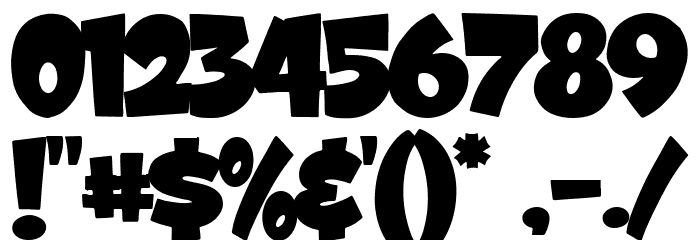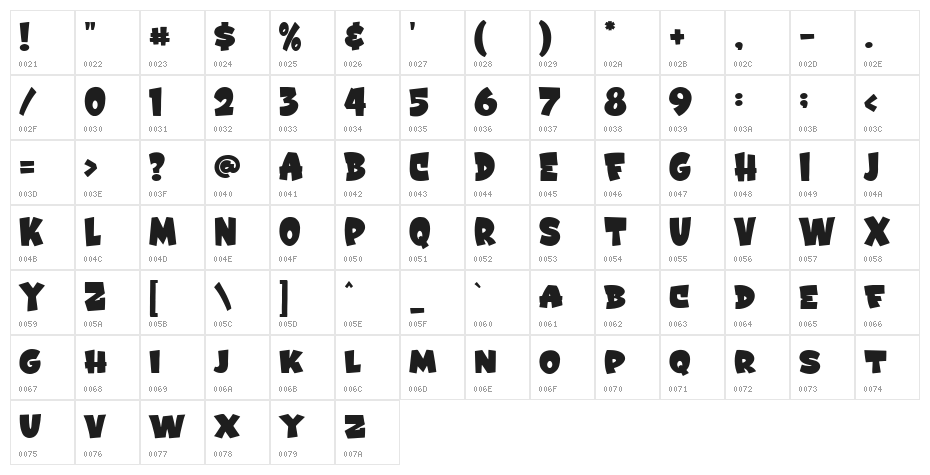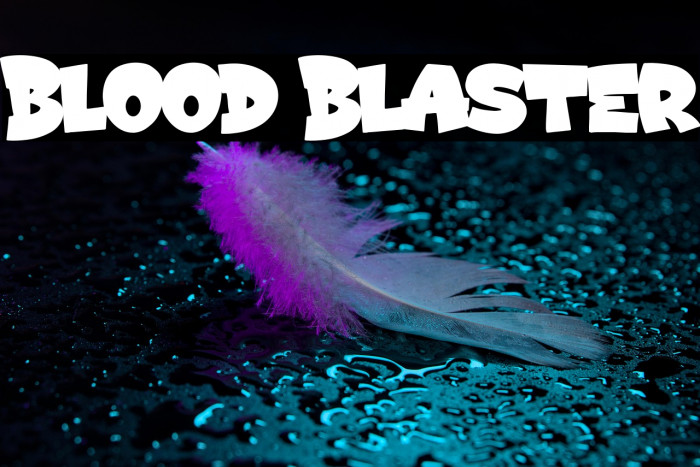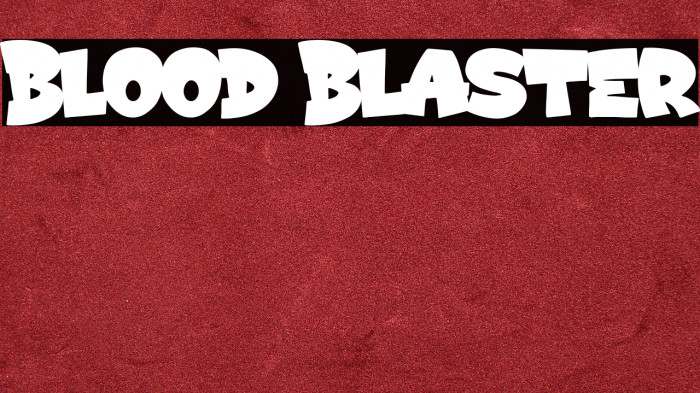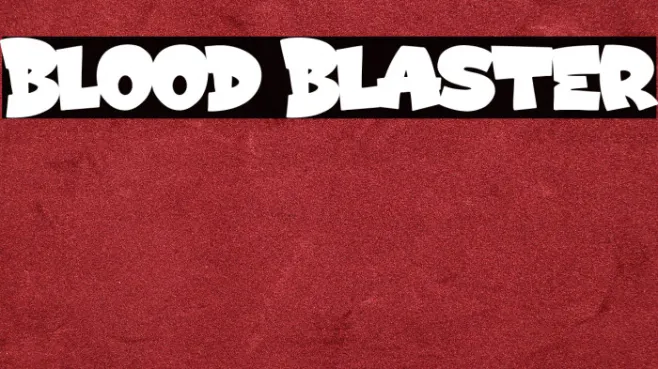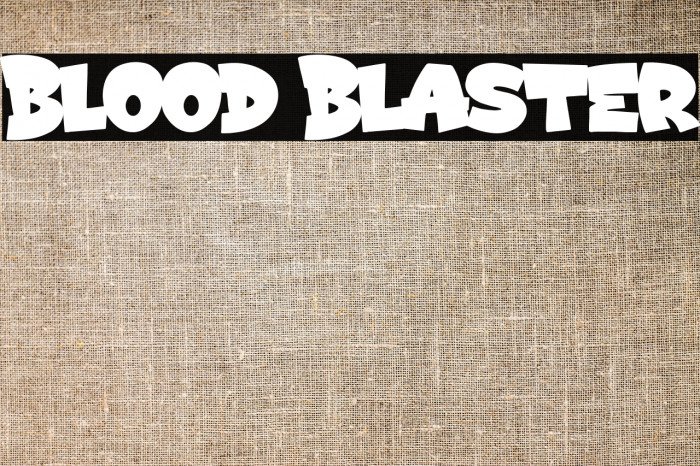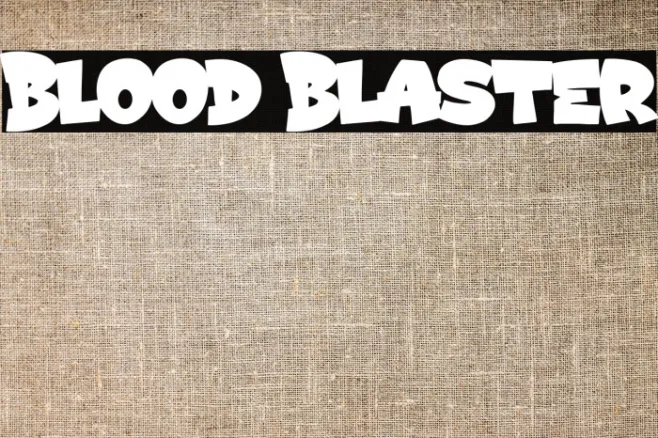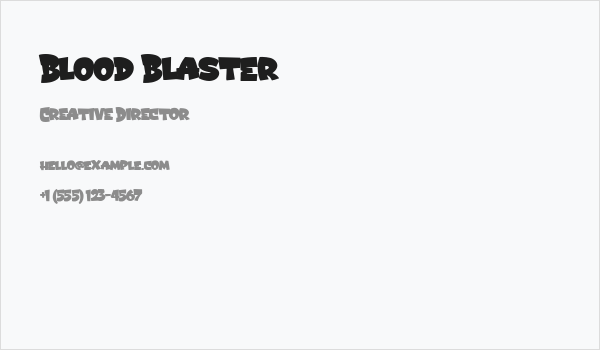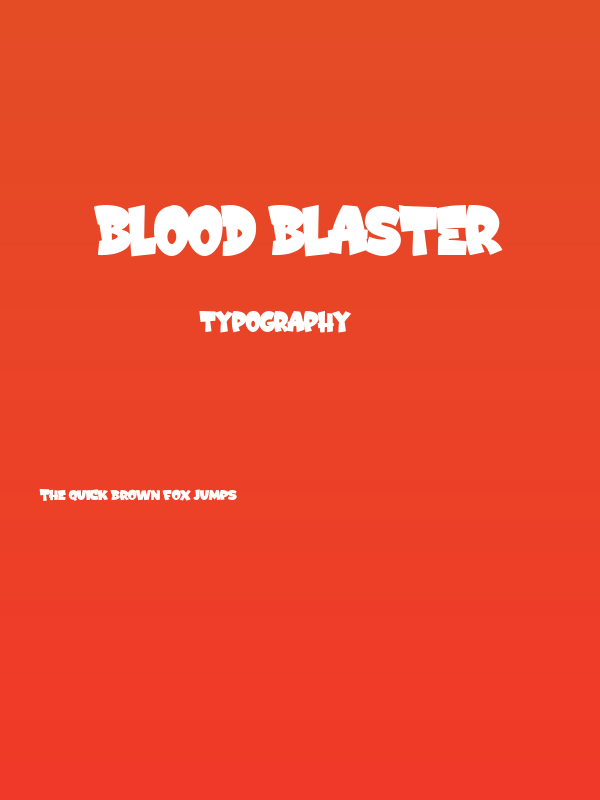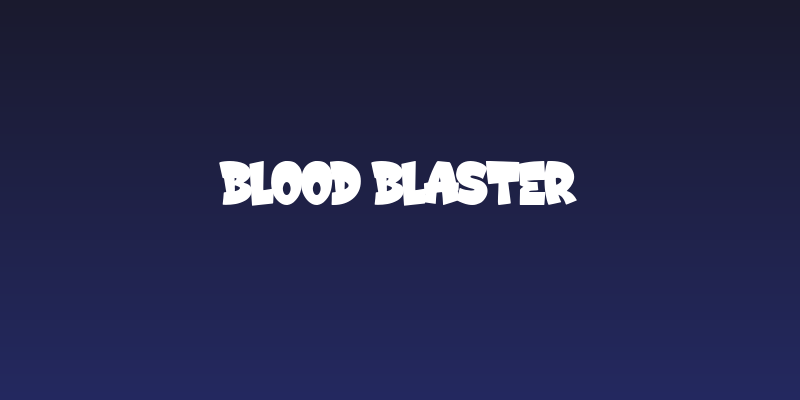
Blood Blaster Font
Blood Blaster Description
This bold and dynamic font features thick, exaggerated strokes with a playful and slightly chaotic appearance. The characters are heavily stylized, with sharp angles and irregular shapes that give a sense of movement and energy. The uppercase letters are particularly striking, with a strong presence that demands attention. The numbers and special characters maintain the same bold style, ensuring consistency across all elements. This font is designed to stand out and make a statement, perfect for projects that require a touch of boldness and creativity.
| Proposed Projects | Ideal for posters, comic book titles, video game graphics, and any project needing a bold, eye-catching font. |